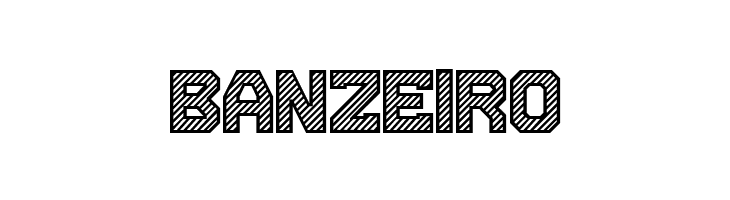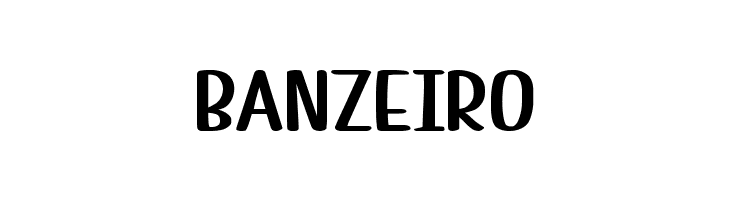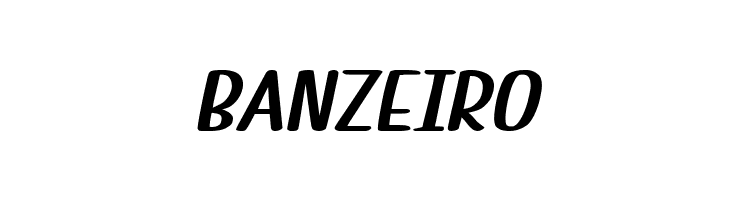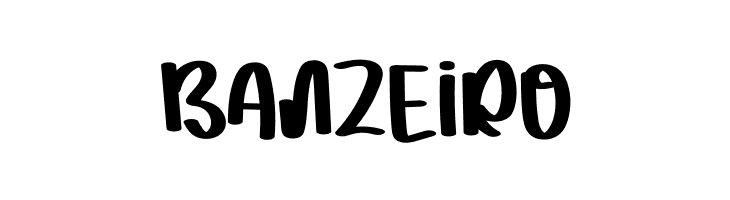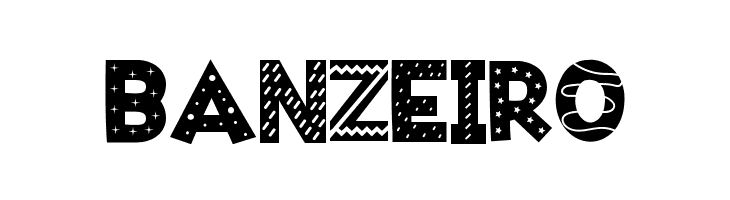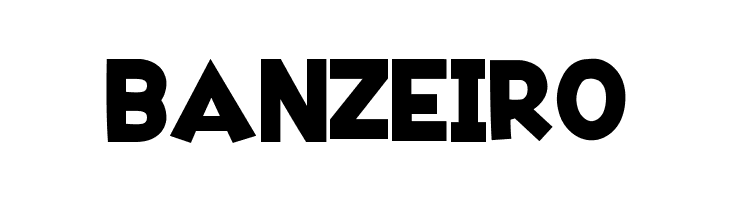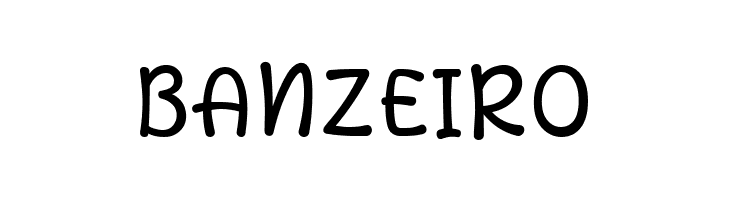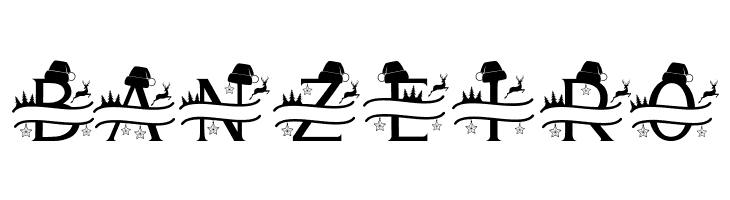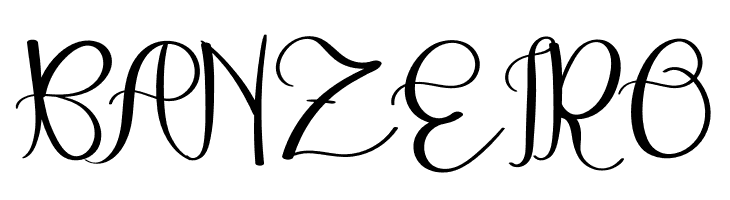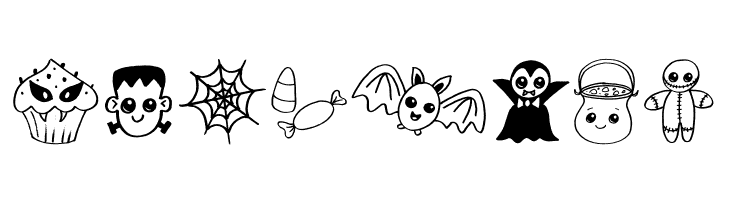
• Cut Me Out
A bold, geometric font with a cut-out style, enclosed in square outlines.
• Cut Point
A display font made from weapon and tool silhouettes.
• Cut the crap
A bold, distressed font with a grunge aesthetic and rough edges.
• Cut the paper Regular
A bold, decorative font with a unique cut-out pattern and striped texture.
• CutAway
A bold, angular font with a modern, edgy style.
• CutAwayOne
A narrative, woodcut-style decorative font with each character as a detailed illustration.
• CutBlox
A bold, angular font with a geometric and dynamic style.
• Cute
A playful, bold font with sharp angles and decorative outlines.
• cute - Personal Use
A playful and elegant script font with flowing, cursive letterforms.
• Cute 'n' Cuddly
A playful, bold font with rounded edges and a bubbly appearance.
• Cute And Active
A playful, bold, and rounded hand-drawn font with a whimsical style.
• Cute Animals
A playful, hand-drawn font with tall, narrow letters and consistent stroke width.
• Cute Aurora
A playful, hand-drawn font with rounded edges and a whimsical style.
• Cute Bubble
A playful, bubbly font with thick, rounded characters and a whimsical style.
• Cute Butterfly
A whimsical script font with elegant swirls and heart accents.
• Cute Cartoon
A playful, hand-drawn font with a cartoonish and whimsical style.
• Cute Cartoon
A playful, hand-drawn font with a cartoonish style and lively outlines.
• Cute Cartoon Italic
A bold, italicized script font with a playful, cartoonish style.
• Cute Cartoon Italic
A playful, bold italic font with a handwritten style.
• Cute Cat
A playful, handwritten-style font with rounded, uniform strokes.
• Cute Christmas Monogram